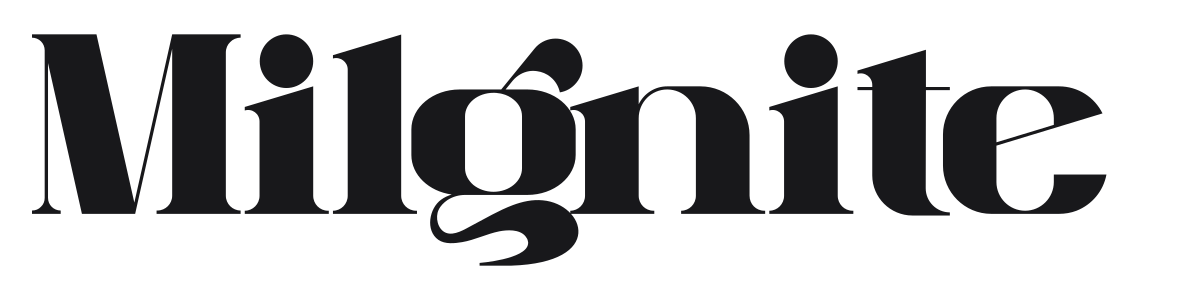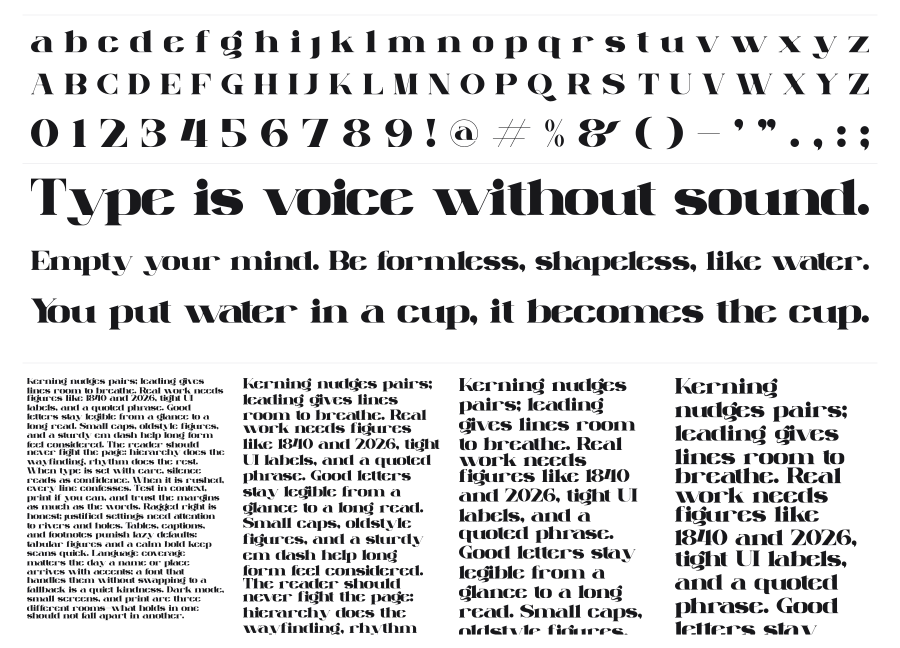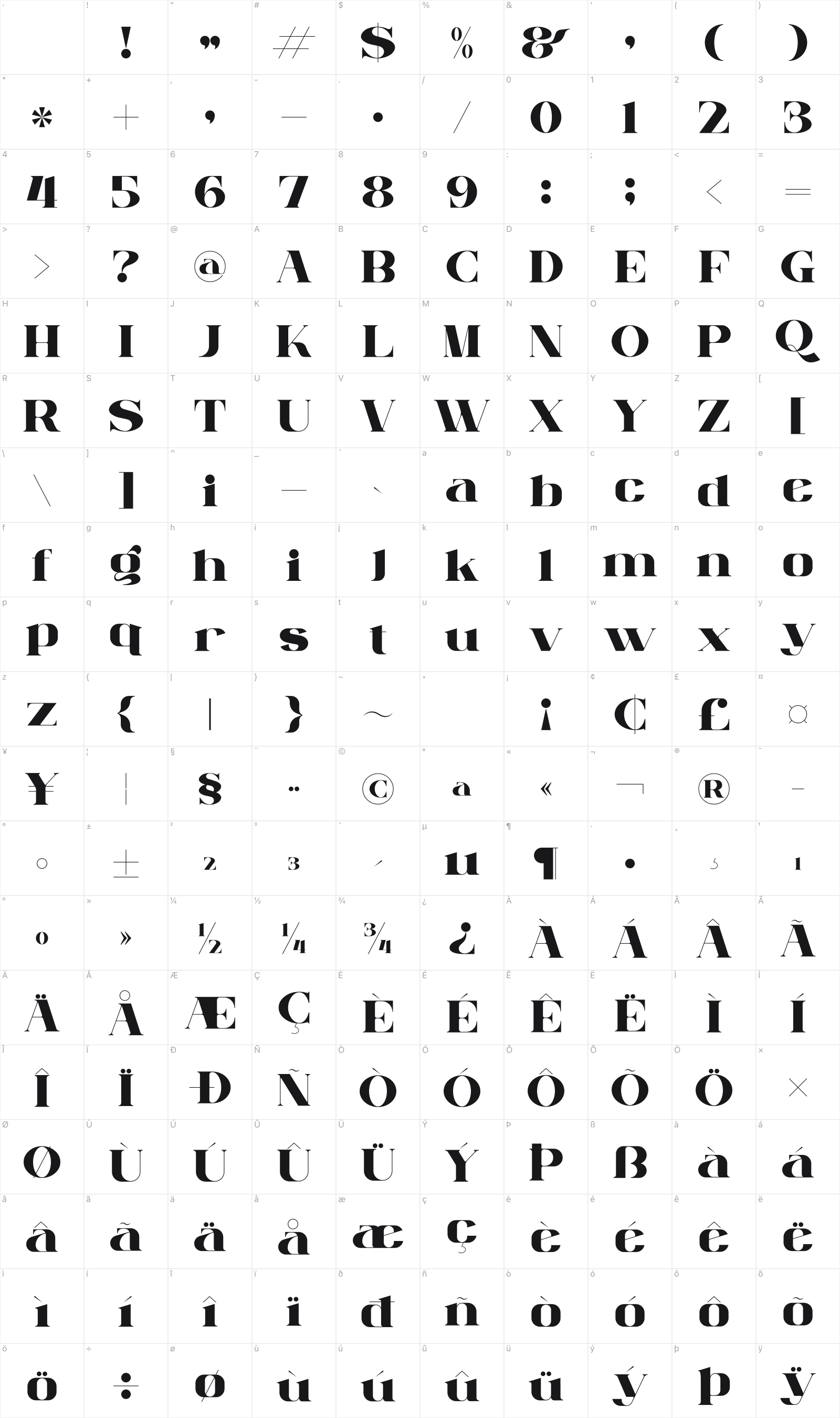
Milgnite
Milgnite is a high-contrast display serif with sweeping thick-thin strokes and wide, dramatic proportions drawn from the Didone tradition. The bold stems and near-hairline thins create a tension that reads as confident and luxurious at headline sizes. It sits naturally in fashion editorial, beauty branding, and anywhere that calls for typographic impact.